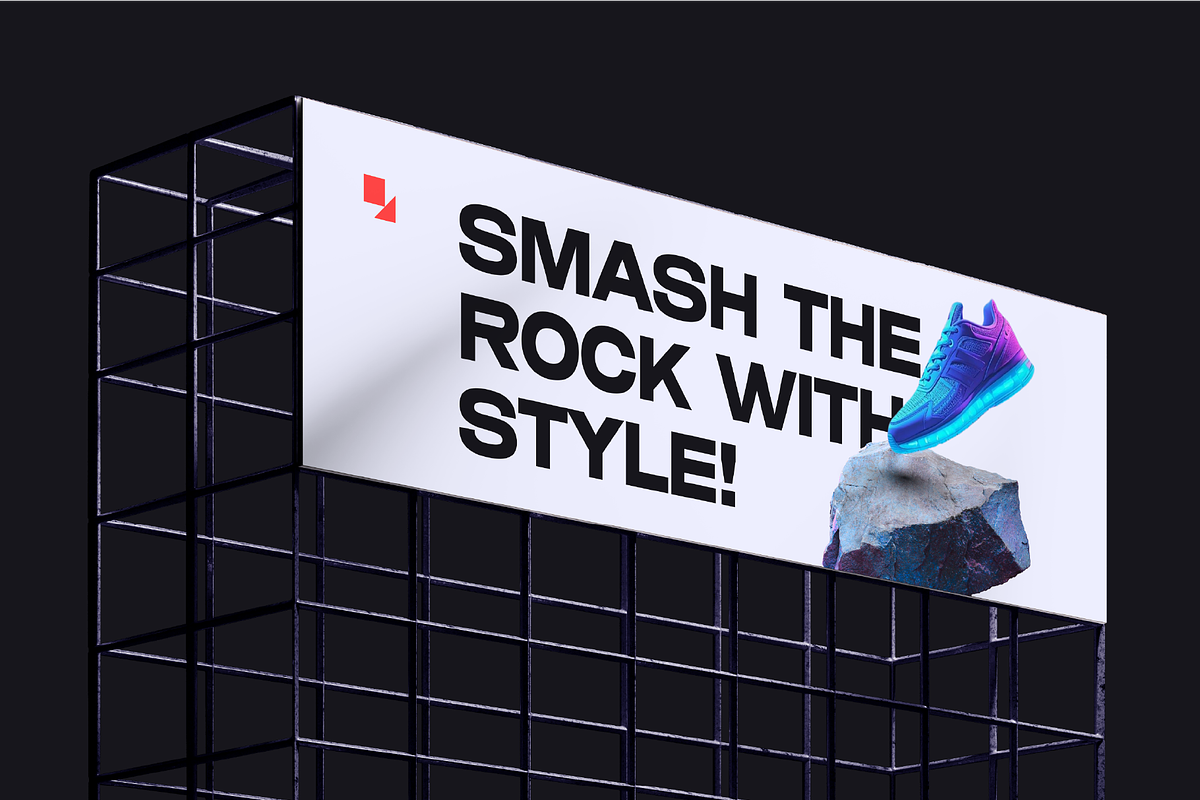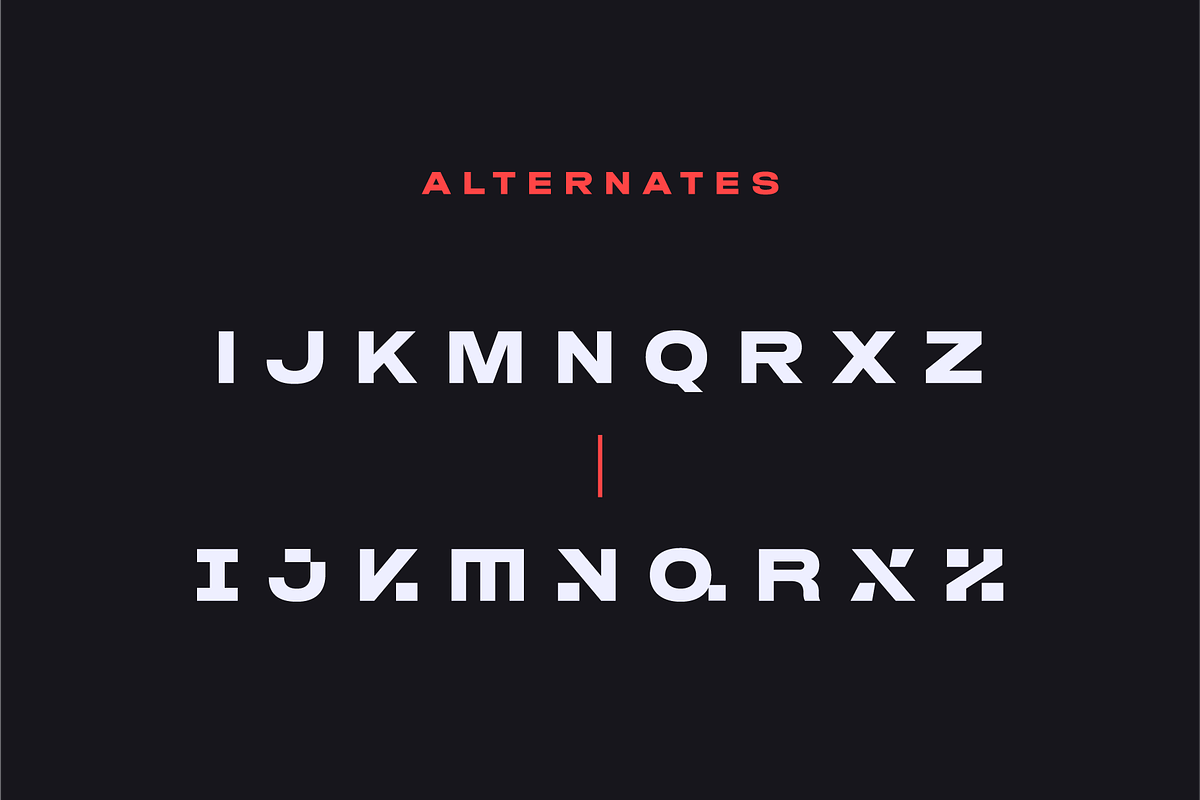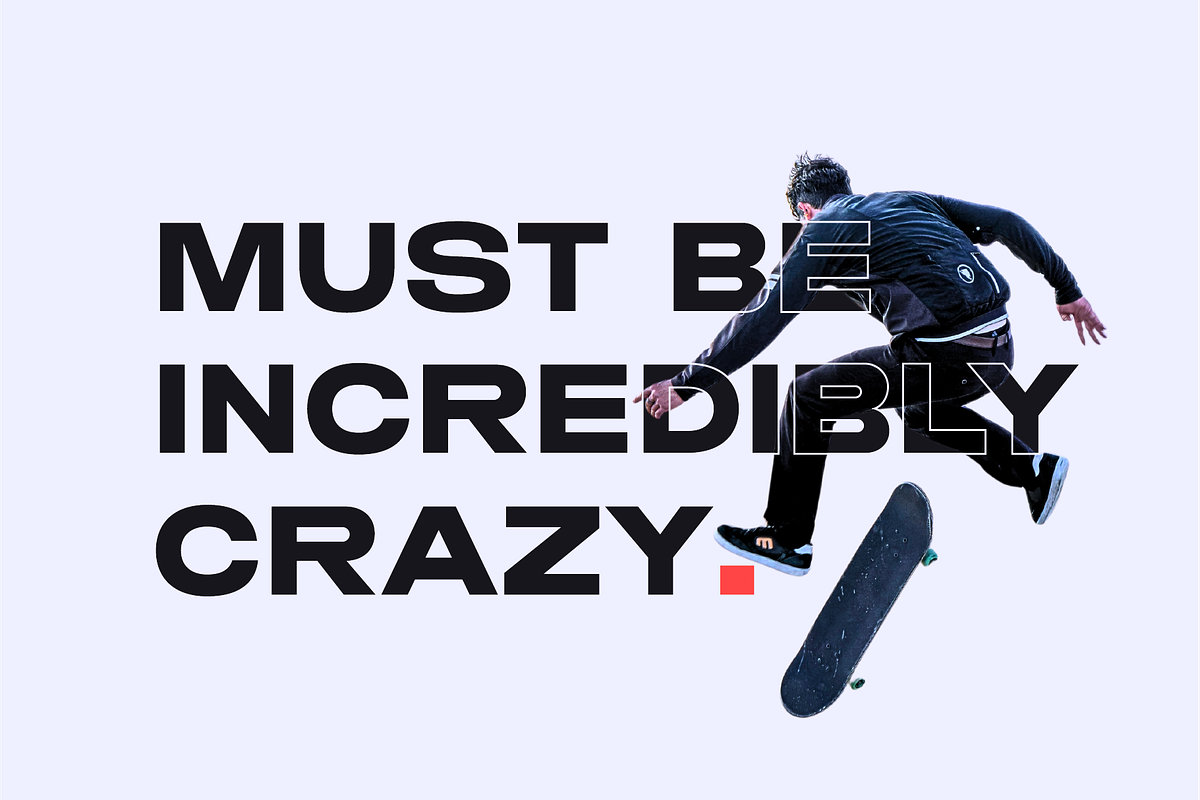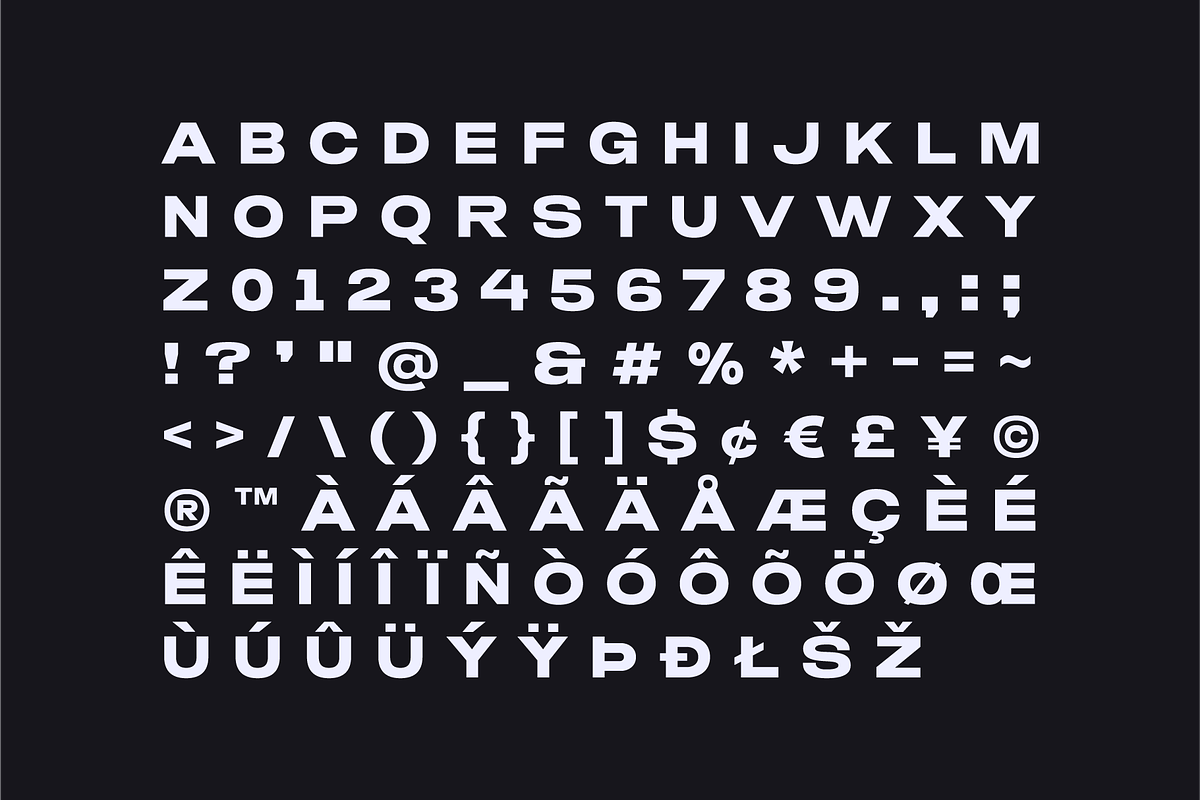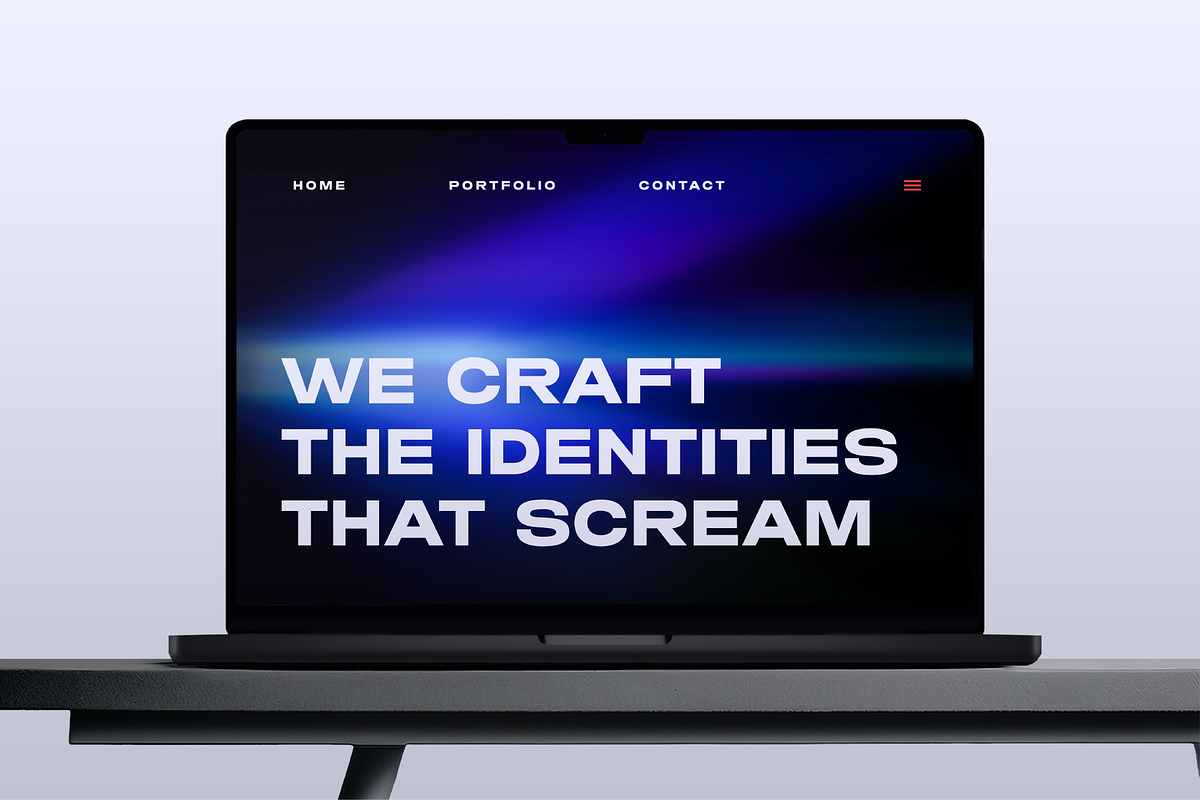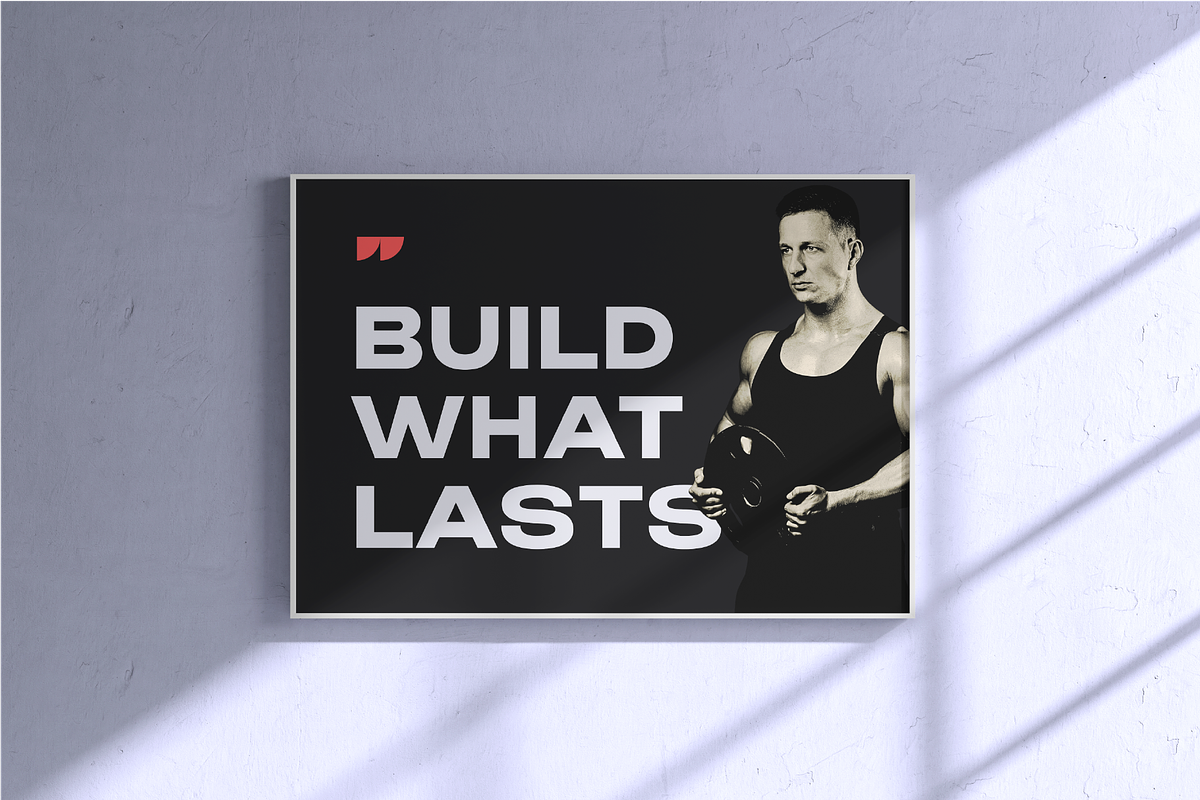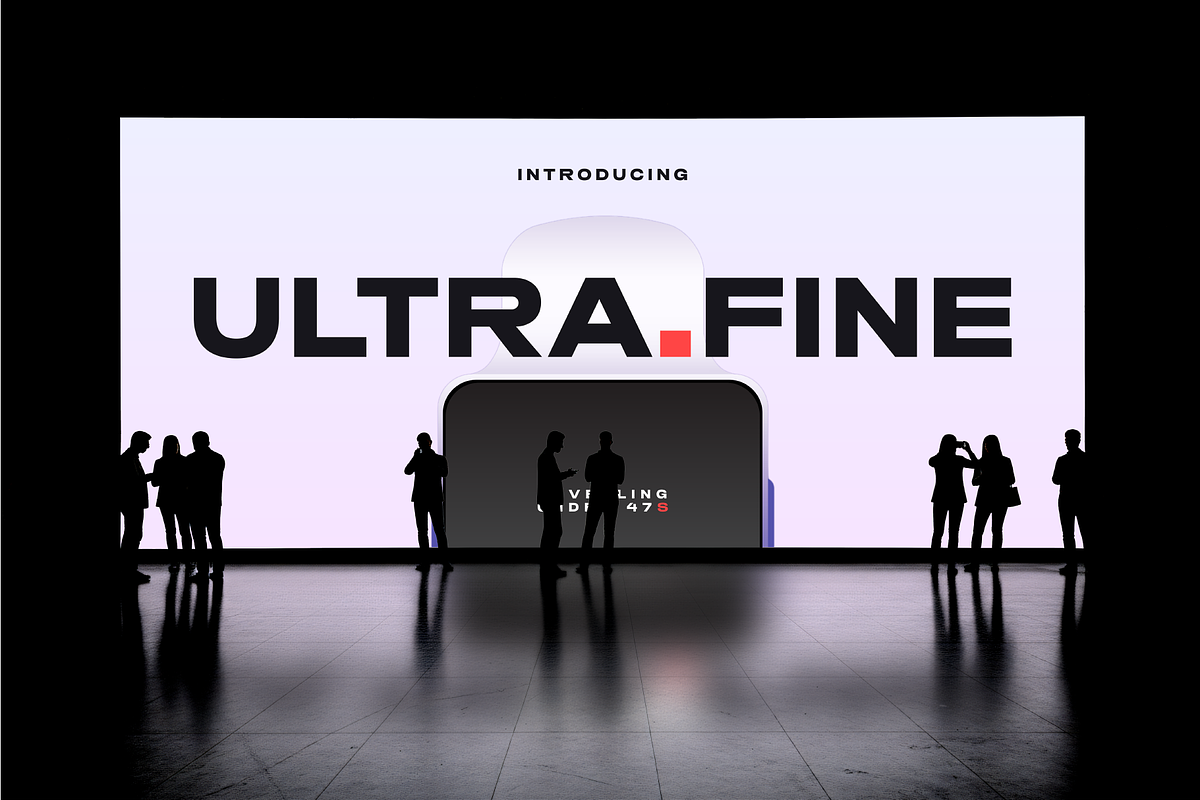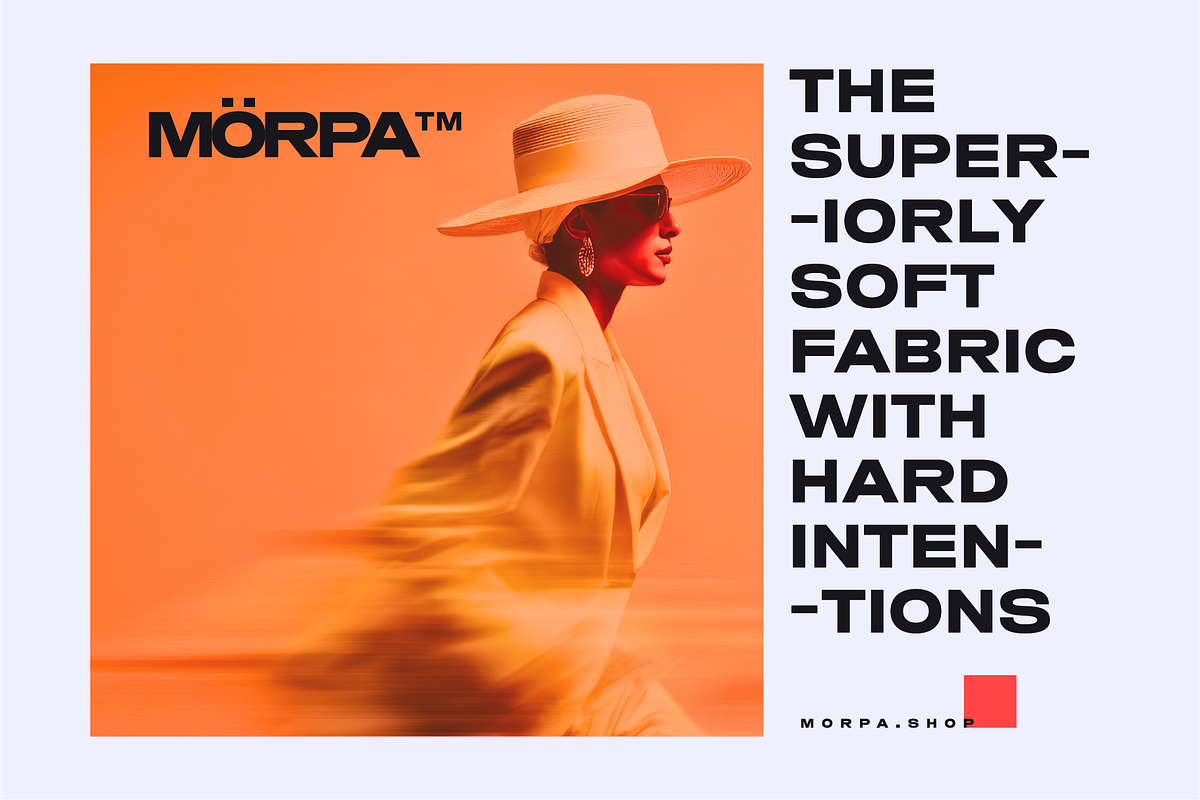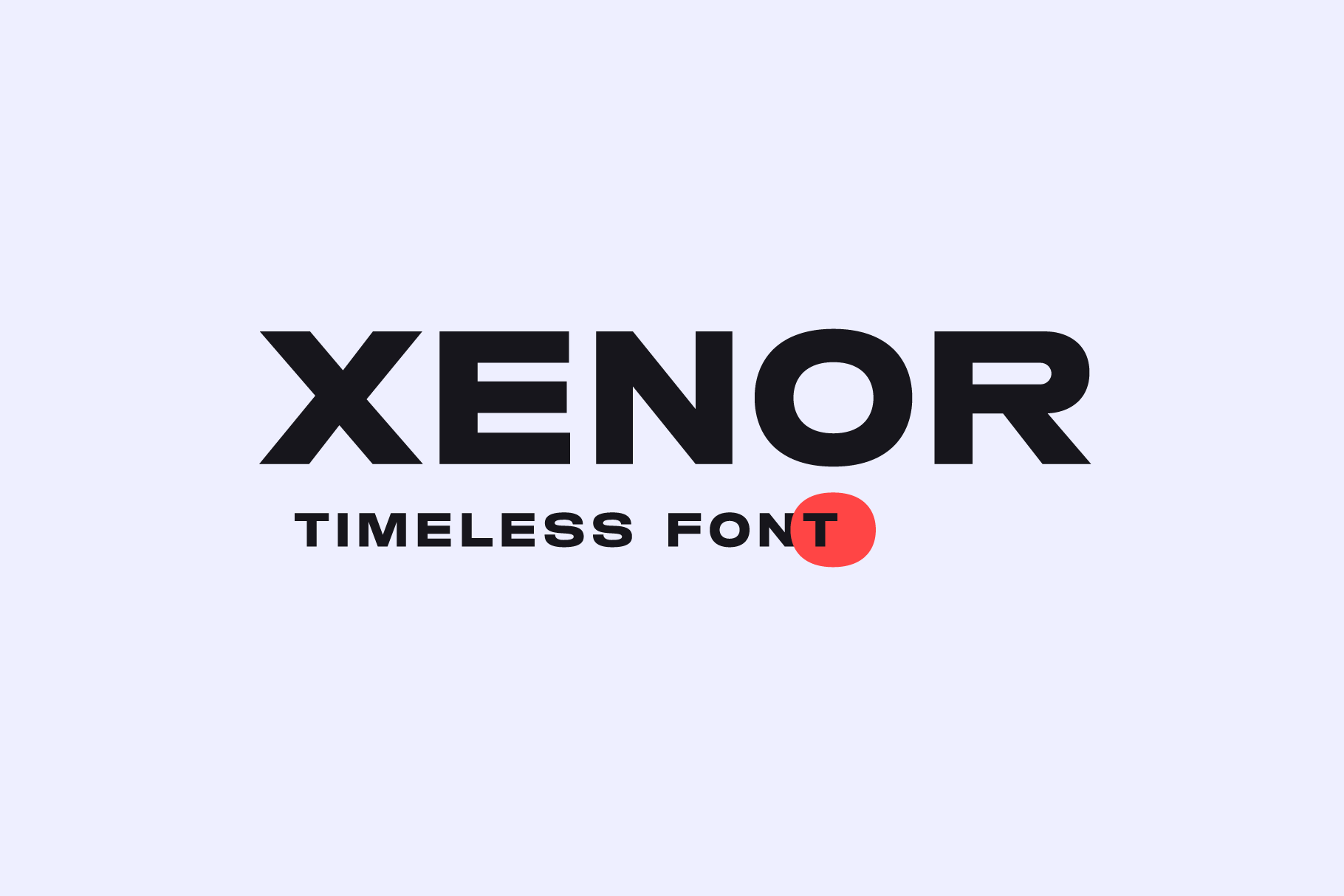
XENOR- Timeless Bold Display Font
XENOR is a timeless modern display font built for bold brands. It is a powerful uppercase typeface suitable for fashion, tech, and performance-driven visuals. XENOR strikes a confident balance between contemporary minimalism and powerful visual impact. It is built for designers who need a font that performs effortlessly across fashion, technology, sports, and creative branding. At its core, XENOR is a versatile sans-serif display font optimized for headlines, logos, posters, billboards, and digital interfaces.